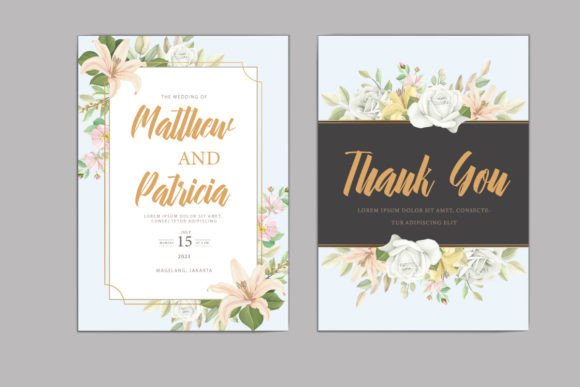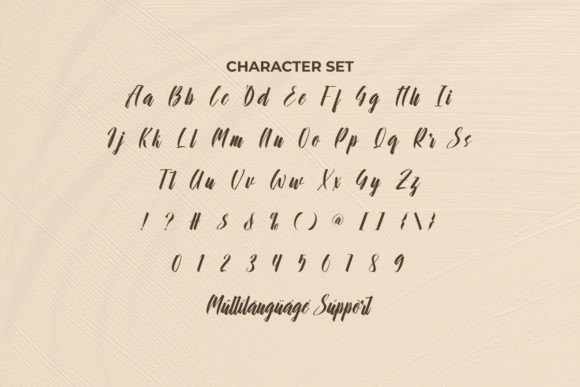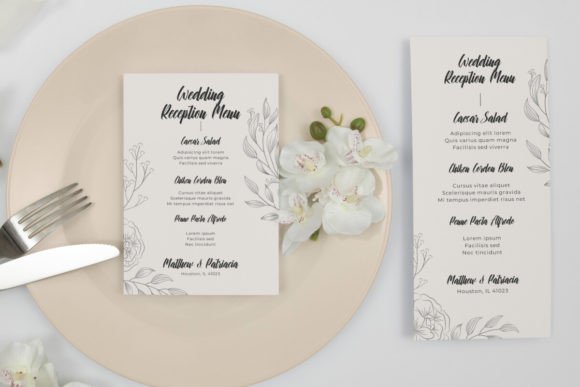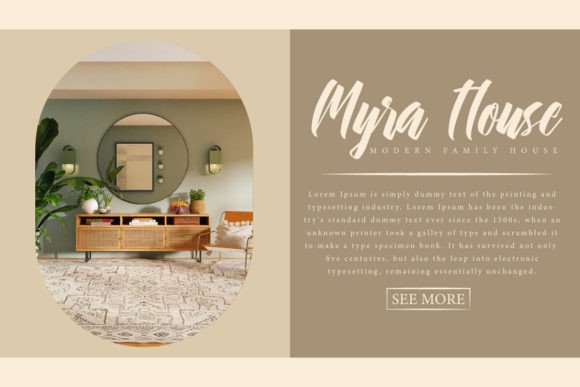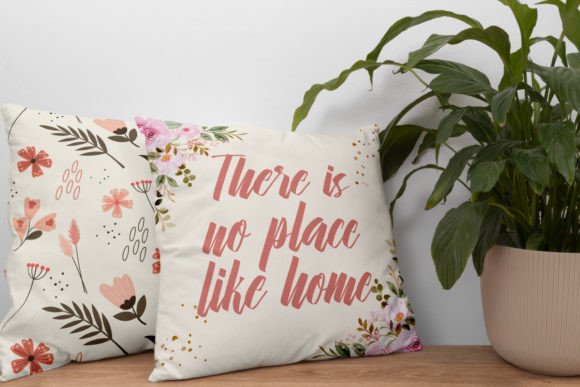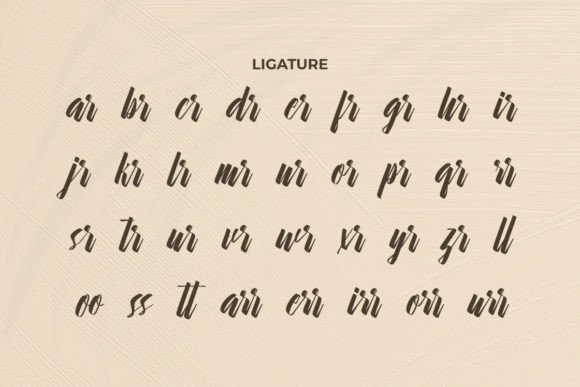
Introduction to House Wared Font
Have you ever been working on a creative project and struggled to find the perfect font to bring it to life? I know I have! There’s nothing quite like the feeling of stumbling upon a beautiful script font that perfectly captures the essence of your design. For me, that moment came when I discovered the stunning House Wared Font. Its calligraphy style and bold lines are not only visually appealing, but also incredibly easy to read.
As a designer, finding a high-quality font that complements your design is crucial. That’s why I’m excited to share with you the beauty of House Wared Font, a free download that’s perfect for any creative project. With its transparent background and elegant design, this font is a valuable resource for designers looking to elevate their work.
Key Features of House Wared Font
- High-quality font design ideal for creative projects, offering a unique and stylish look.
- Available for free download, making it a valuable design resource for both personal and commercial projects.
- Features a large character set, including uppercase and lowercase letters, numbers, and special characters.
- Perfect for use in various design projects, including logos, typography, and branding materials.
Honest Review: House Wared Font
I recently stumbled upon the House Wared Font and was immediately drawn to its sleek, modern design. As a designer, I’m always on the lookout for high-quality fonts that can elevate my creative projects and this one certainly fits the bill.
One of the standout features of the House Wared Font is its transparent background, which makes it incredibly versatile and easy to use. I’ve used it for everything from branding and marketing materials to digital products and packaging designs.
- ✨ High-quality design that’s perfect for modern and sleek creative projects.
- ✨ Transparent background makes it easy to customize and combine with other design elements.
- ⚠️ Limited font styles and weights, which may limit its use in certain projects.
- ⚠️ Not as extensive a character set as some other fonts, which may cause issues with certain languages.
Overall, I’m really impressed with the House Wared Font and would highly recommend it to designers looking for a high-quality, modern font to use in their creative projects.
Tips for Getting the Most Out of House Wared Font
To get the most out of House Wared Font, experiment with different font sizes, colors, and combinations. You can also use the font in conjunction with other design elements, such as images and graphics, to create unique and eye-catching designs.
Common Use Cases for House Wared Font
House Wared Font is a versatile design resource that can be used in a variety of creative projects, including graphic design, logo design, social media marketing, and more. It’s a great choice for anyone looking for a high-quality font with a transparent background.